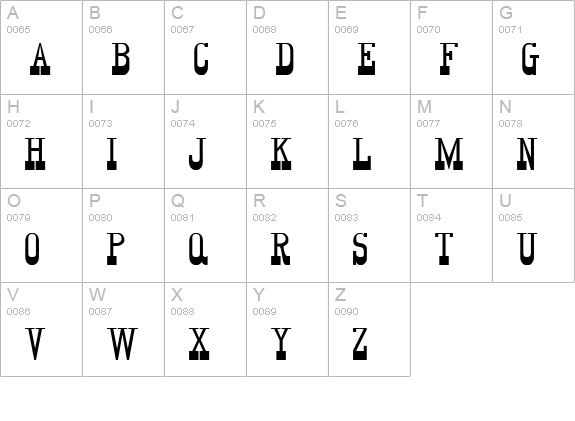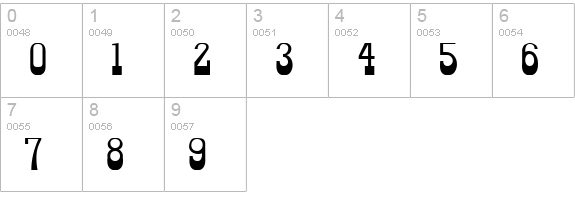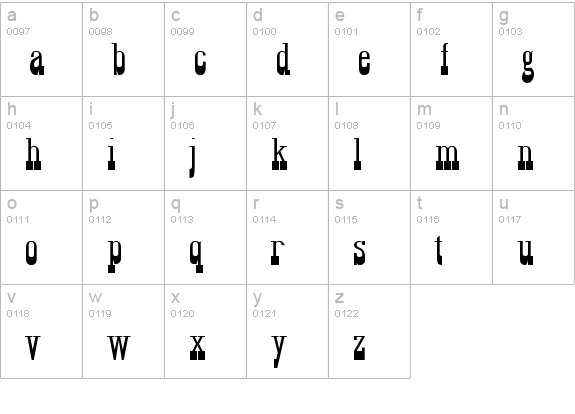
BigBottom Font Details
Introducing BigBottom font - a bold and eye-catching typeface that demands attention with its distinctive design. This unique font features rounded corners and a solid, weighty appearance that makes it perfect for headlines, posters, and branding projects. BigBottom font exudes a sense of strength and reliability, making it a great choice for projects that require a powerful and impactful visual presence. And the best part? BigBottom font is available for free download at FontsMarket.com! Whether you're a designer looking for a standout font for your next project or a creative individual searching for a striking typeface to elevate your work, BigBottom font is here to make a bold statement. Don't miss out on this opportunity to add a touch of personality and flair to your designs with the impressive BigBottom font. Download it today and let your creativity shine!